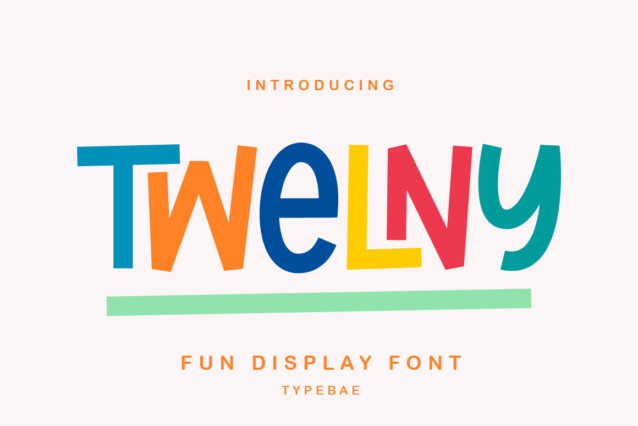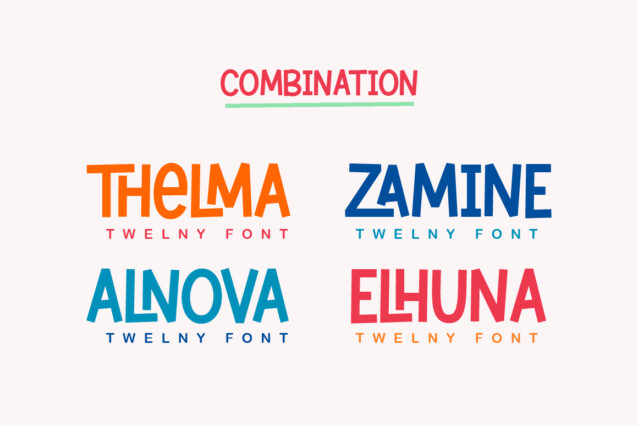
Twenly Font
Twenly Font is an incredibly quirky and sweet display font with cheerful ligatures. Whether you use it for cartoon related designs, children games or just any creation that requires a lovely touch, this font will be an amazing choice.